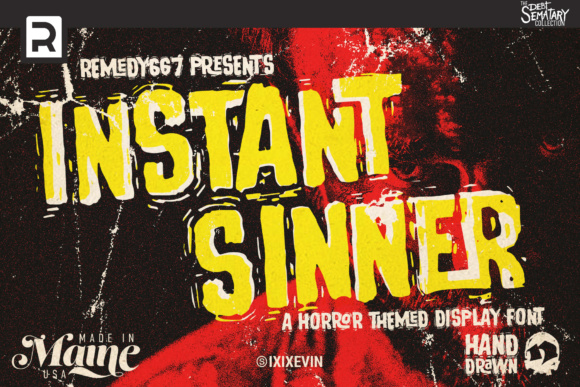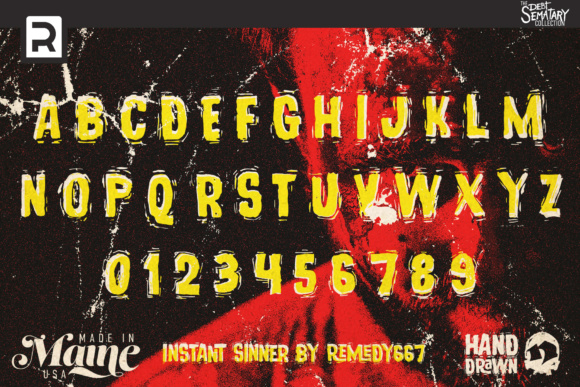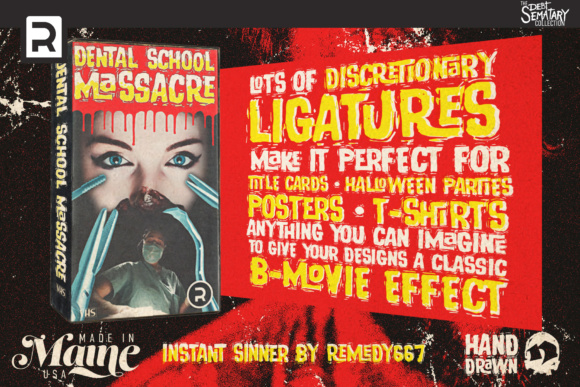
Instant Sinner Font: A Retro Horror Display Font for Bold Poster Designs
About the Instant Sinner Font
From logos to headlines, the Instant Sinner Font is the perfect choice for making a lasting impression. The Instant Sinner is a handmade terror font. It was inspired by vintage sci-fi and horror propaganda. It’s loaded with discretionary ligatures and alternates characters. Throw down some scratch, and see if your next project is an Instant Sinner.
Instant Sinner excels in headline applications, posters, and branding projects requiring a strong, retro-futuristic aesthetic. Its distressed texture and aggressive forms make it unsuitable for body text or UI elements where readability is paramount. Avoid using it for long paragraphs or small sizes.
The font’s core personality is bold and rebellious. It evokes a sense of vintage sci-fi horror, making it ideal for projects related to film, gaming, or music within those genres.
Consider pairing Instant Sinner with a clean sans-serif like Futura or a geometric sans-serif for contrast. For a slightly softer feel, a neutral serif like Garamond could work, providing a balance between the handmade texture of Instant Sinner and a more classic, readable element.
Instant Sinner Font Usage Examples
Instant Sinner Font Example